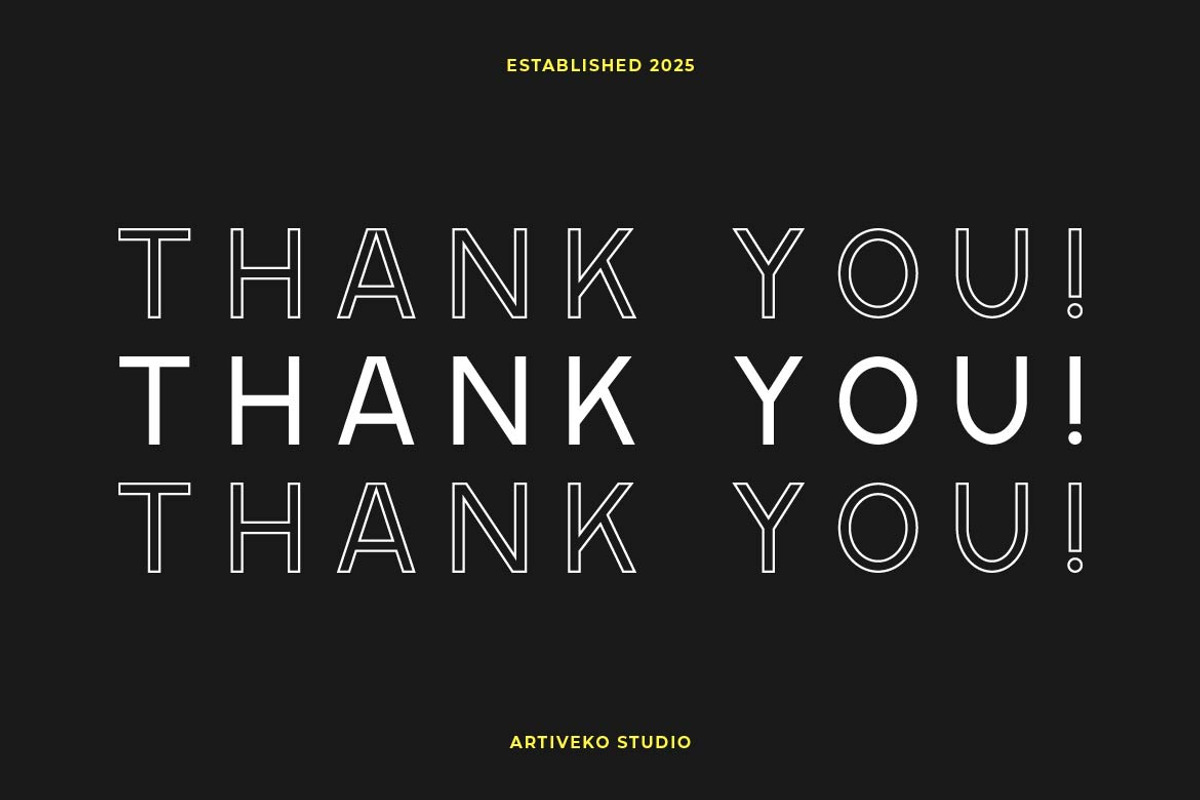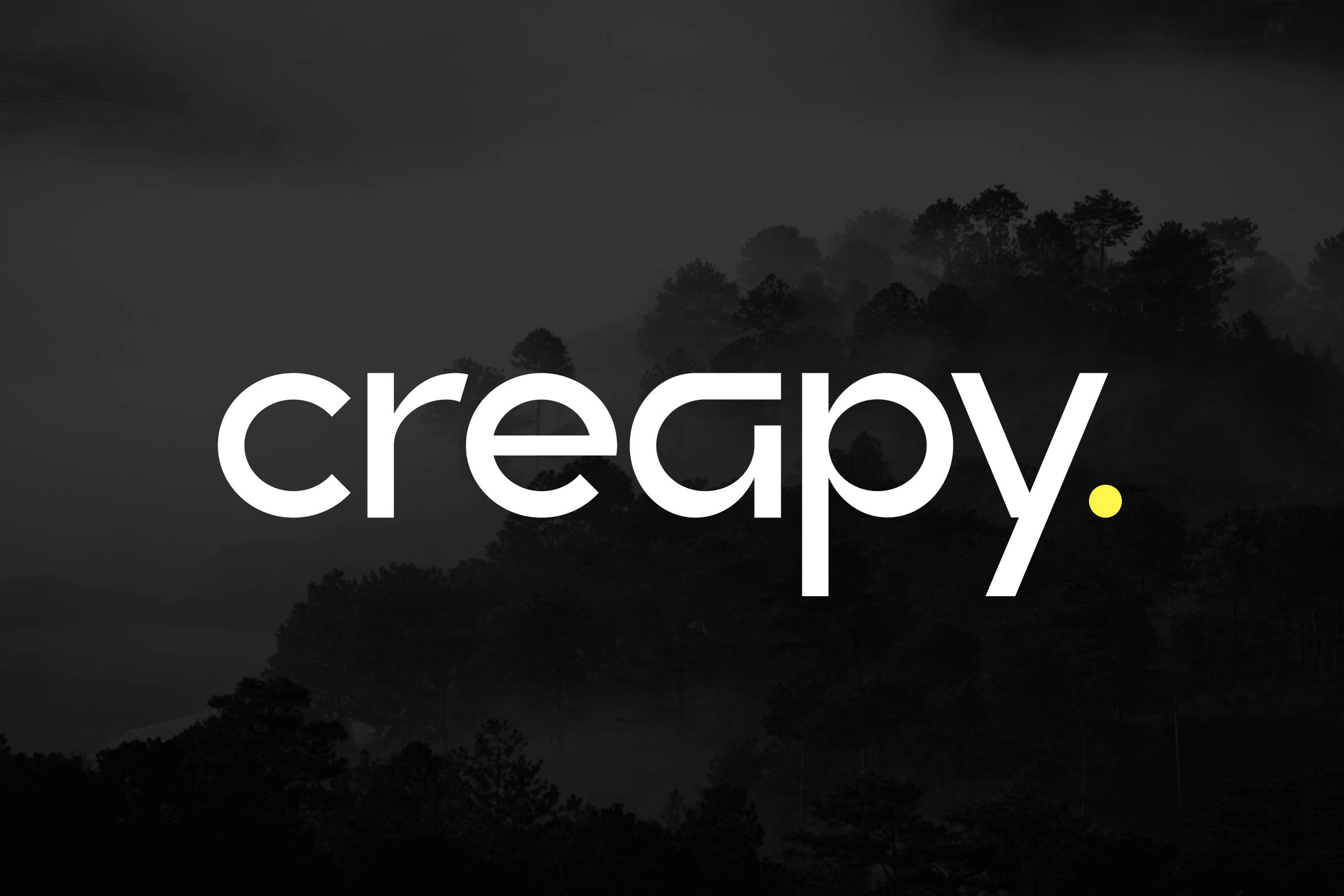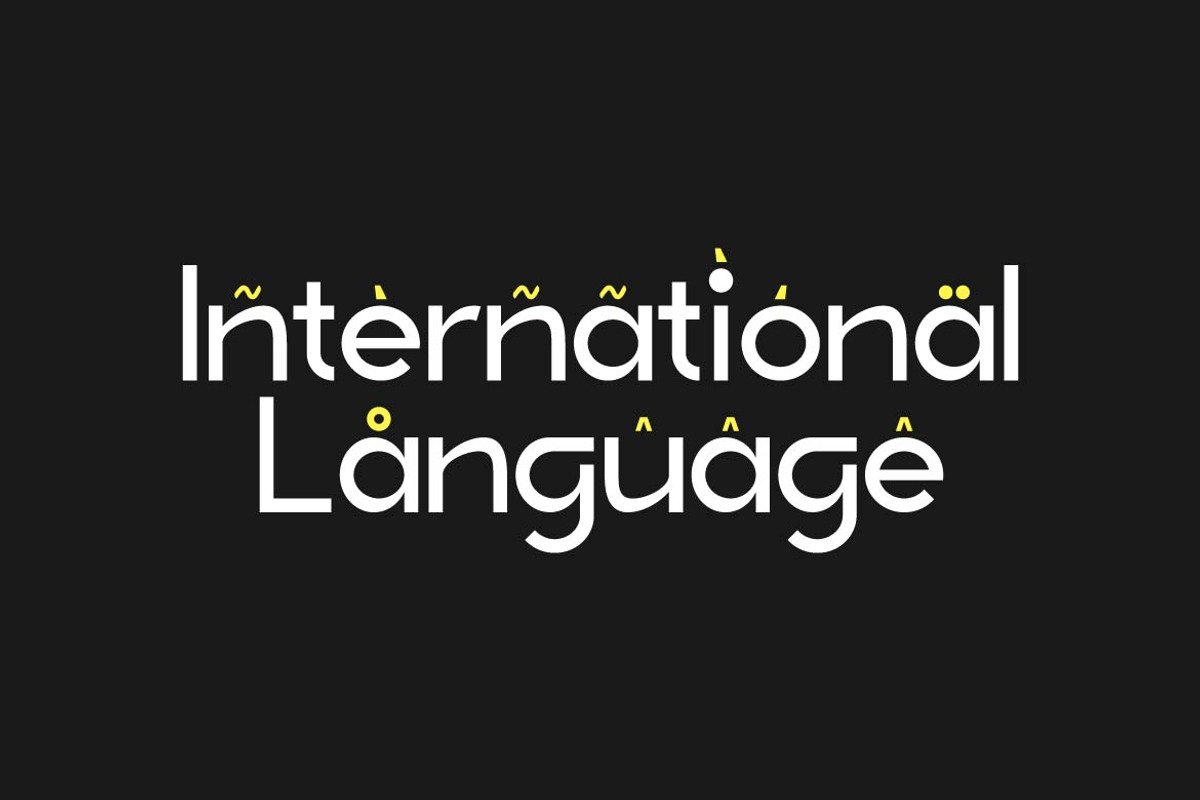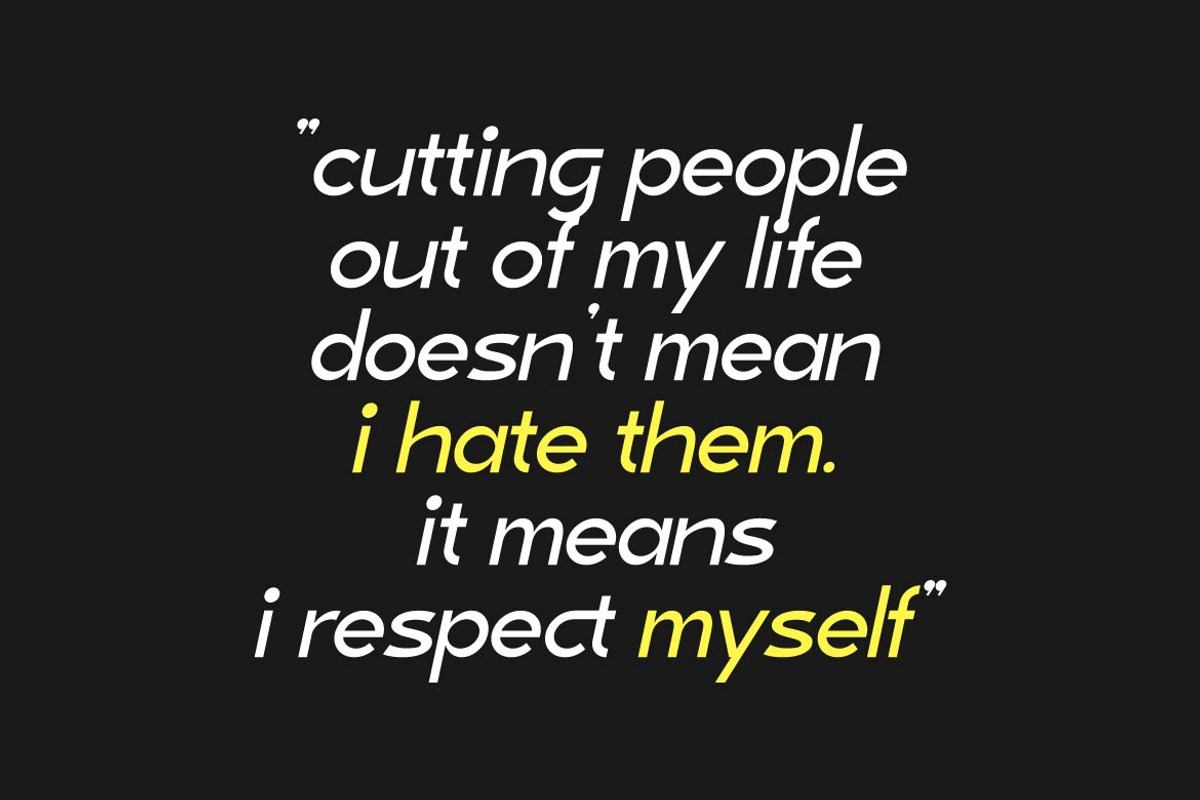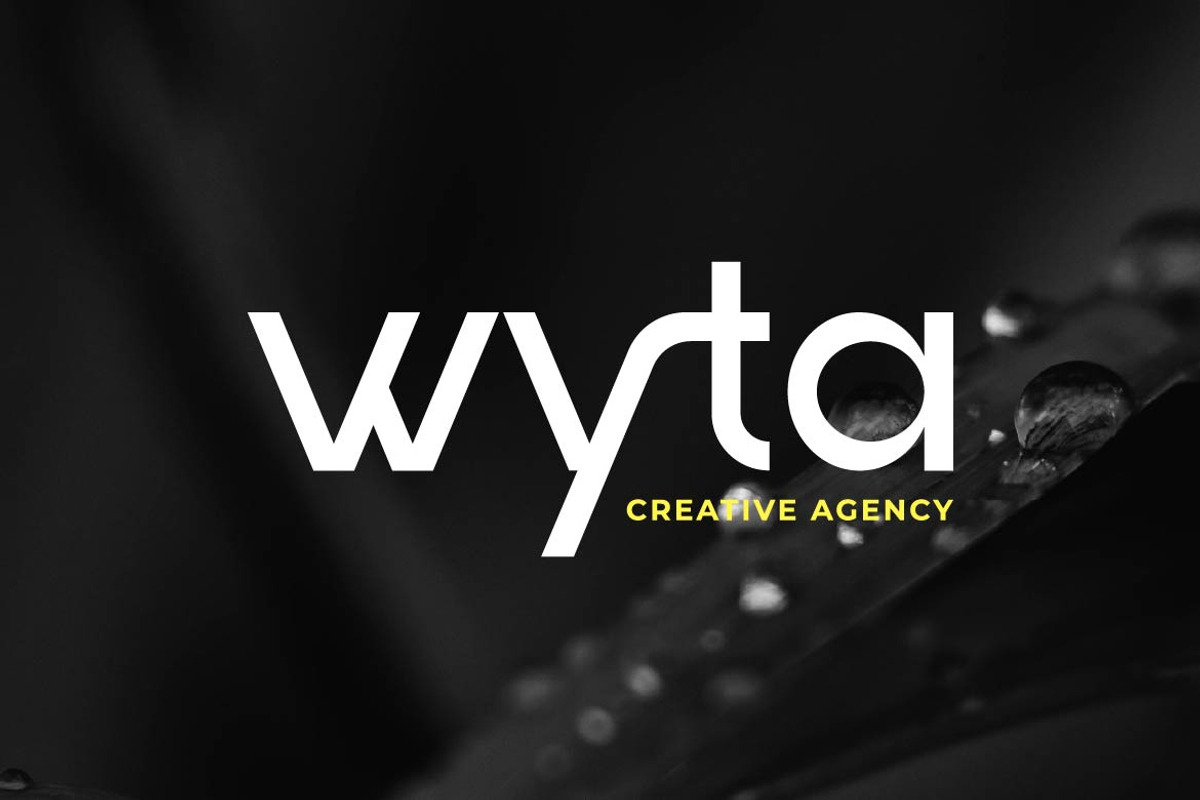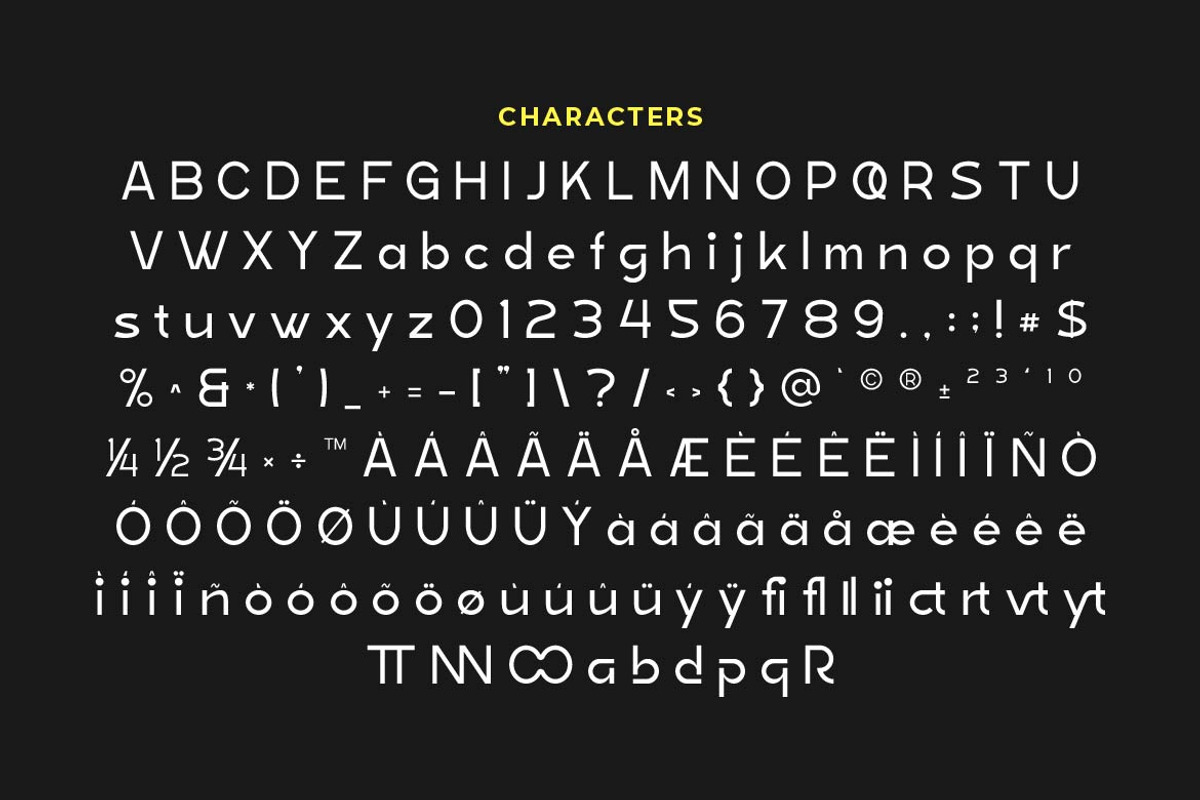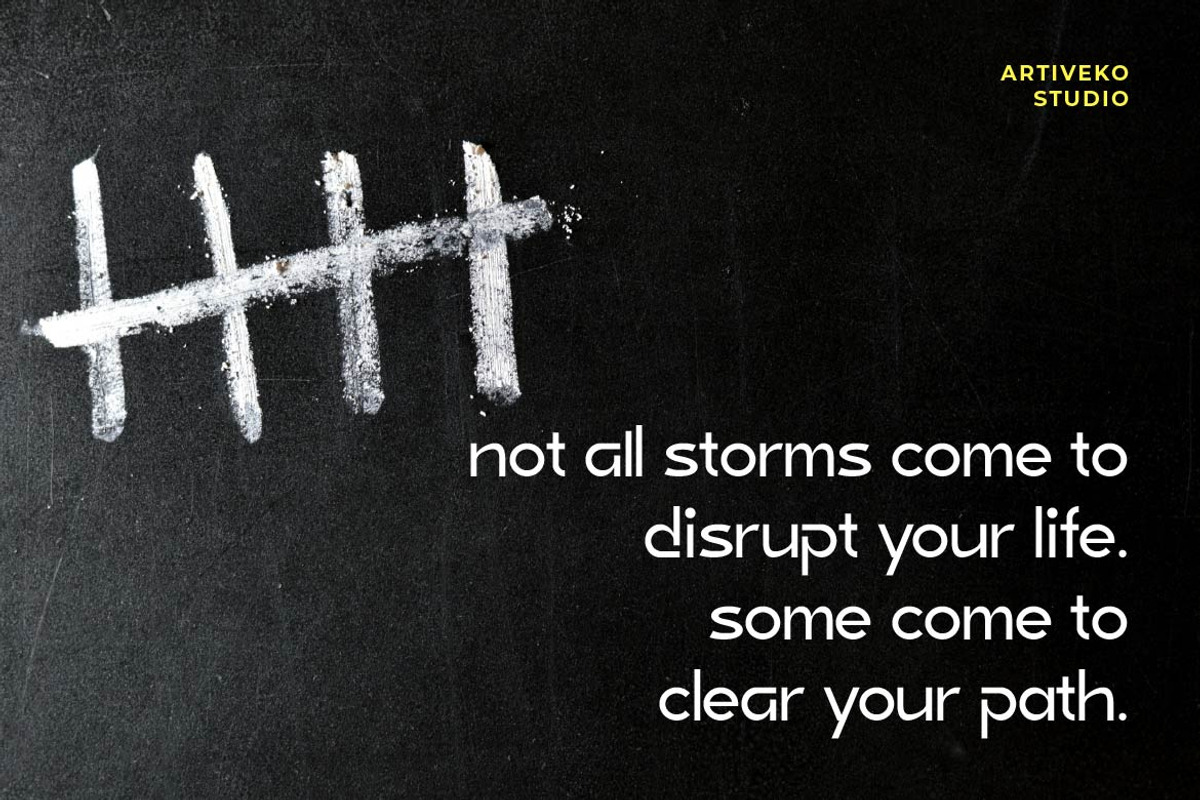
Creapy Display Logo Font
Creapy is a striking modern sans serif font designed to break the rules and command attention. With quirky shapes, bold structure, and a playful yet edgy vibe, Creapy is perfect for branding, posters, headlines, streetwear, album covers, and anything that craves a bold and unforgettable identity.